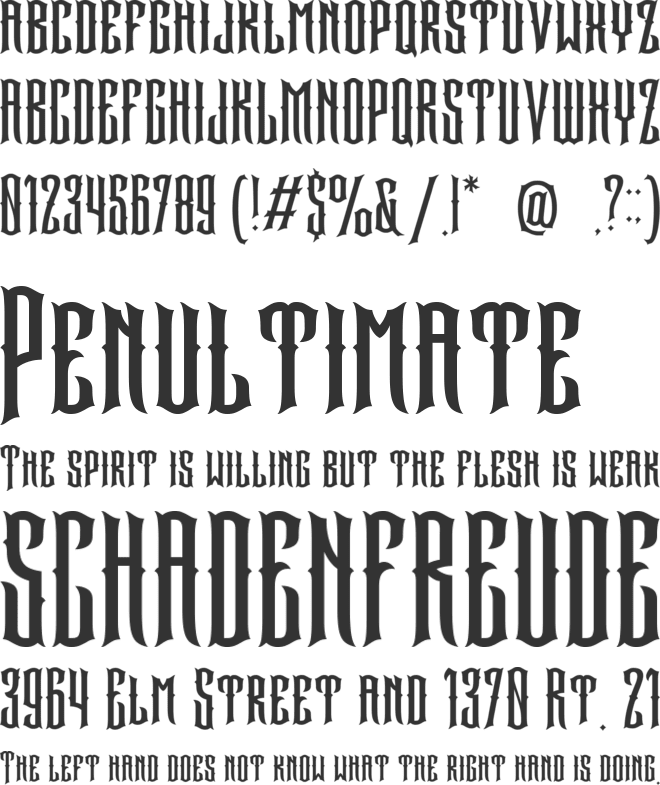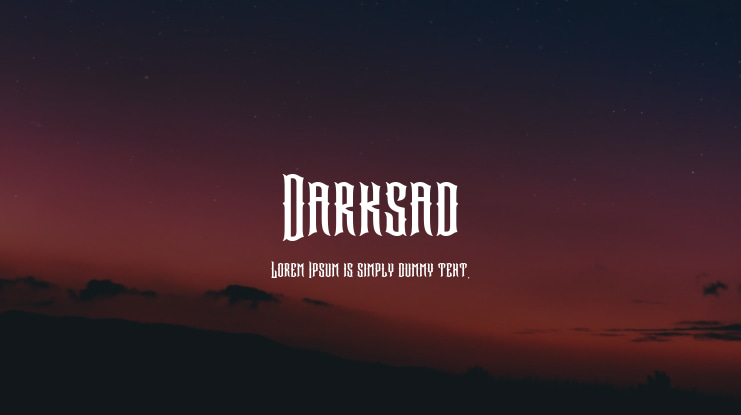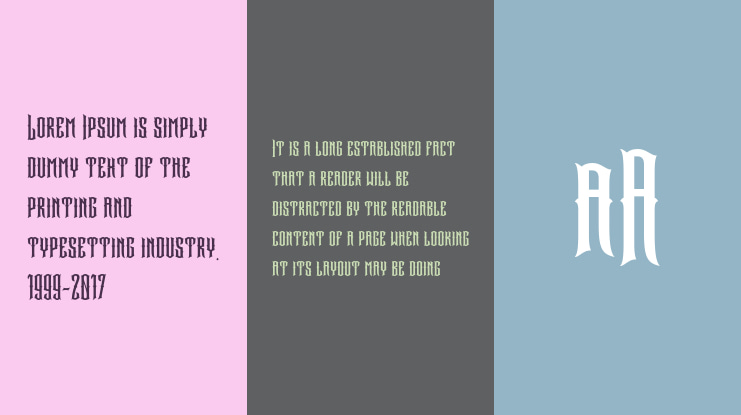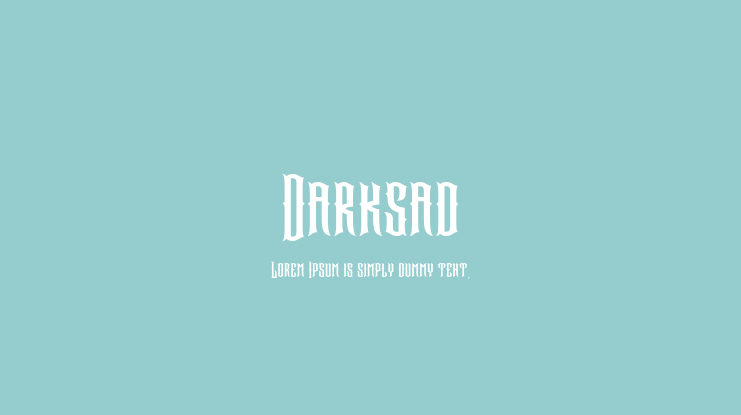
Darksad Font
**Darksad Typeface**
Embrace the shadows and elevate your designs with Darksad Typeface, a dark metal-inspired font forged with raw intensity and razor-sharp elegance. Featuring bold, thorn-like spikes and a rebellious rock spirit, this typeface is perfect for projects that demand a striking and edgy aesthetic.